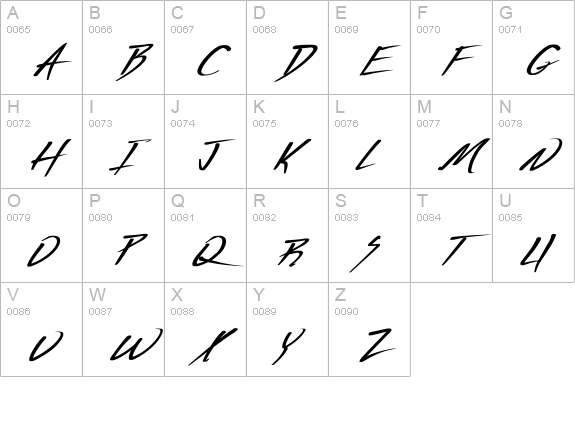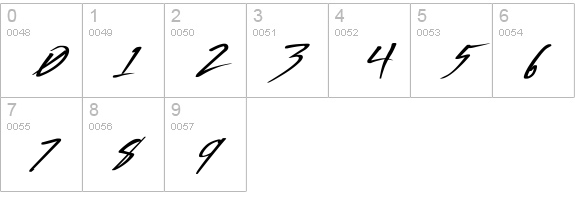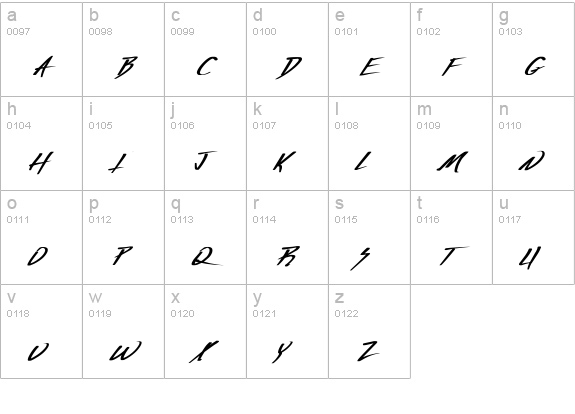
Vecker Bold Italic Font Details
Vecker Bold Italic is a strong, high-contrast, italic variant in the Vecker typeface family \xE2\x80\x94 well suited to headlines, attention-grabbing titles, and strong calls-to-action.
Vecker Bold Italic font is a stunning display of elegance and sophistication. With its bold and slanted design, this font exudes a sense of power and confidence. Each letter is meticulously crafted, combining strong, bold strokes with graceful curves, creating a harmonious balance that is both eye-catching and memorable. This font is perfect for making a bold statement in your designs. Whether it's for a logo, a headline, or a poster, Vecker Bold Italic will effortlessly command attention and leave a lasting impression. Its unique style adds a touch of modernity and creativity to any project, making it the perfect choice for those looking to stand out from the crowd. But what sets Vecker Bold Italic font apart is not just its stunning design – it's also free! Yes, you read that right. This incredible font is freely available to download at FontsMarket.com. Now you can add a touch of elegance and sophistication to your designs without breaking the bank. With Vecker Bold Italic font, you have the freedom to express your creativity without any limitations. Its versatility allows it to be paired with a wide range of fonts, creating endless possibilities for your designs. Whether you're aiming for a sleek and modern look or a vintage and timeless feel, this font will deliver the desired effect. Download Vecker Bold Italic font today from FontsMarket.com and elevate your designs to new heights. With its bold and slanted design, elegant curves, and free availability, this font is the perfect choice for designers, artists, and anyone who wants to make a statement. Don't miss out on this opportunity to enhance your creativity and make a lasting impression.